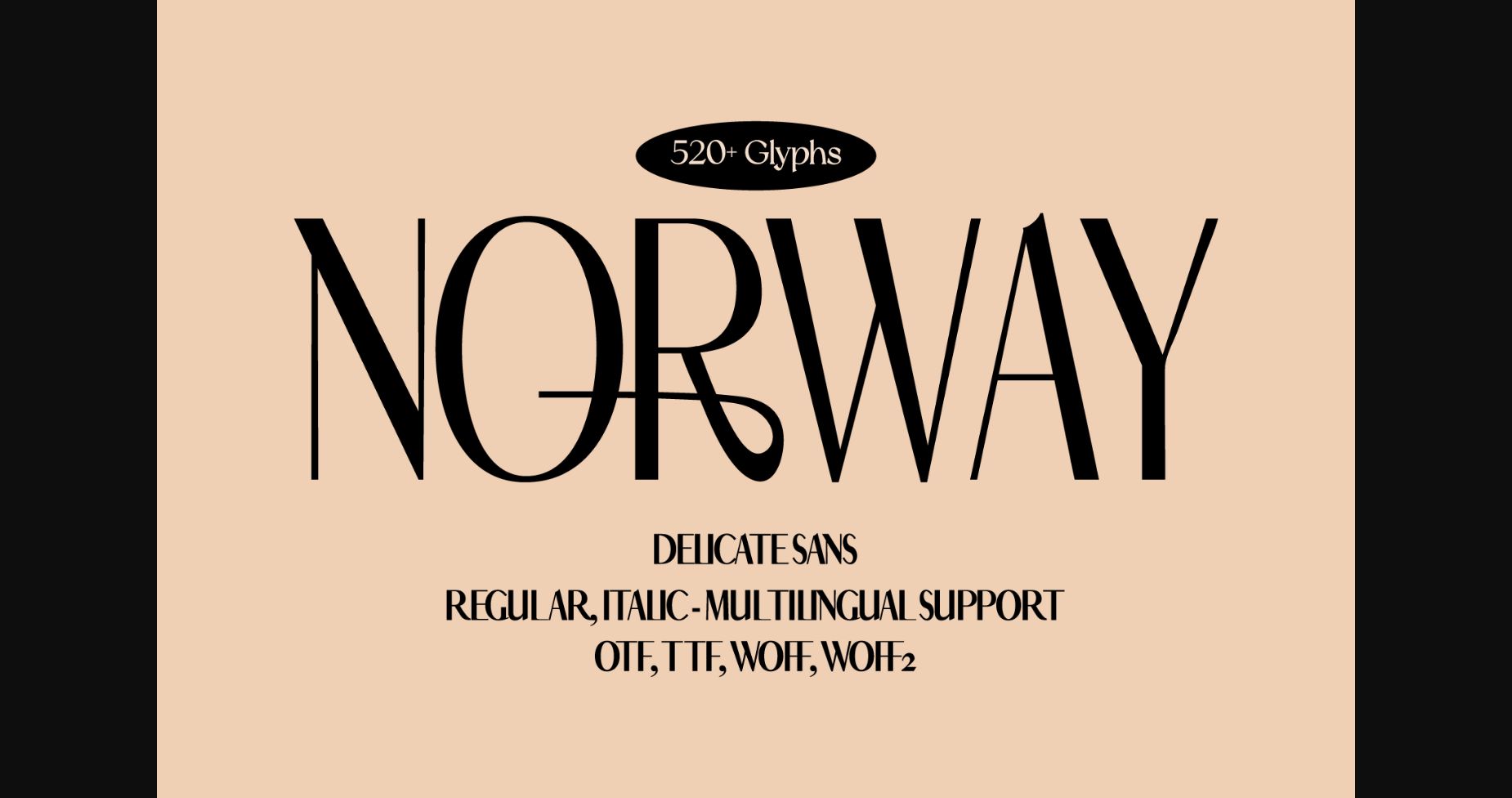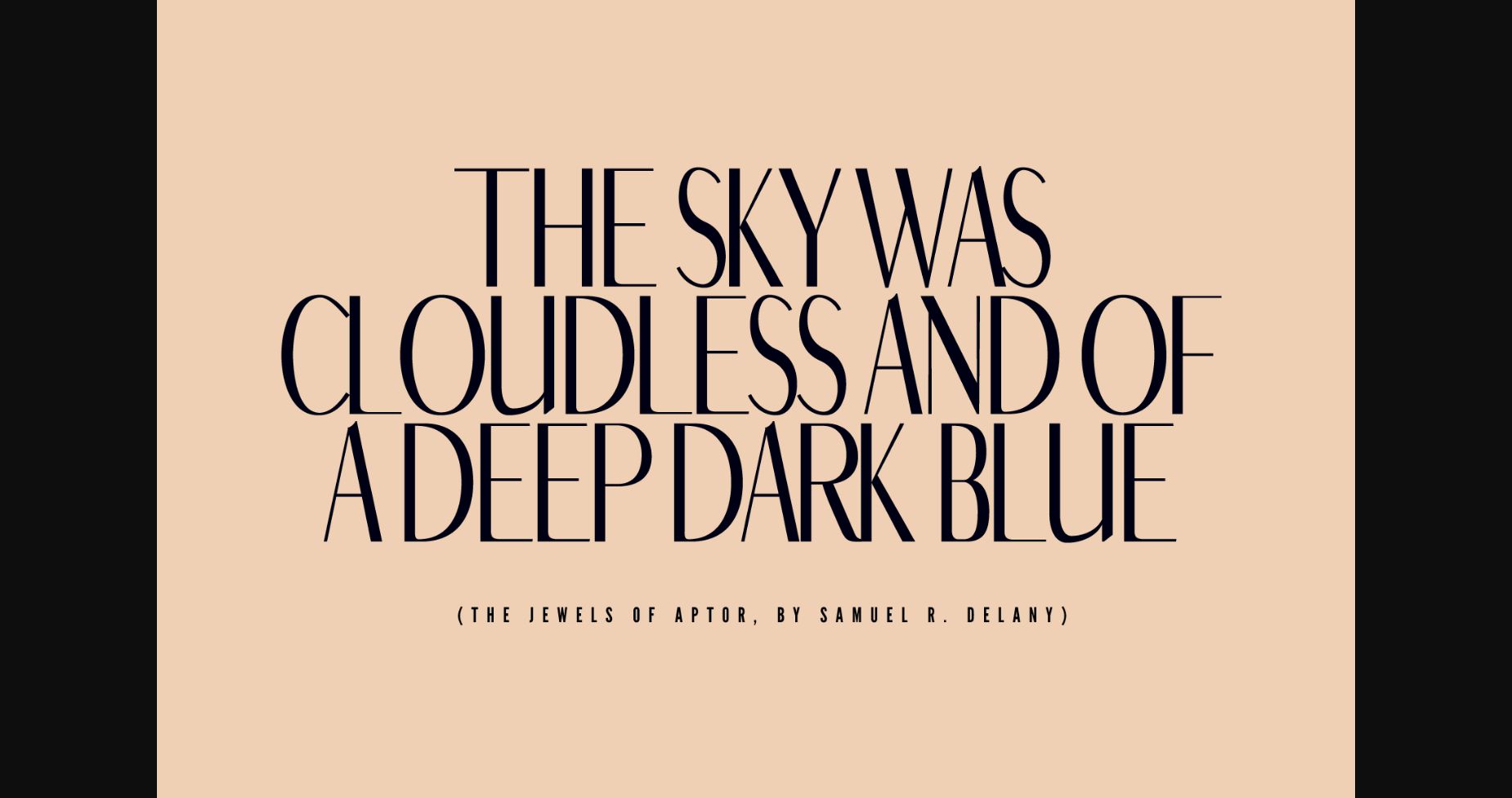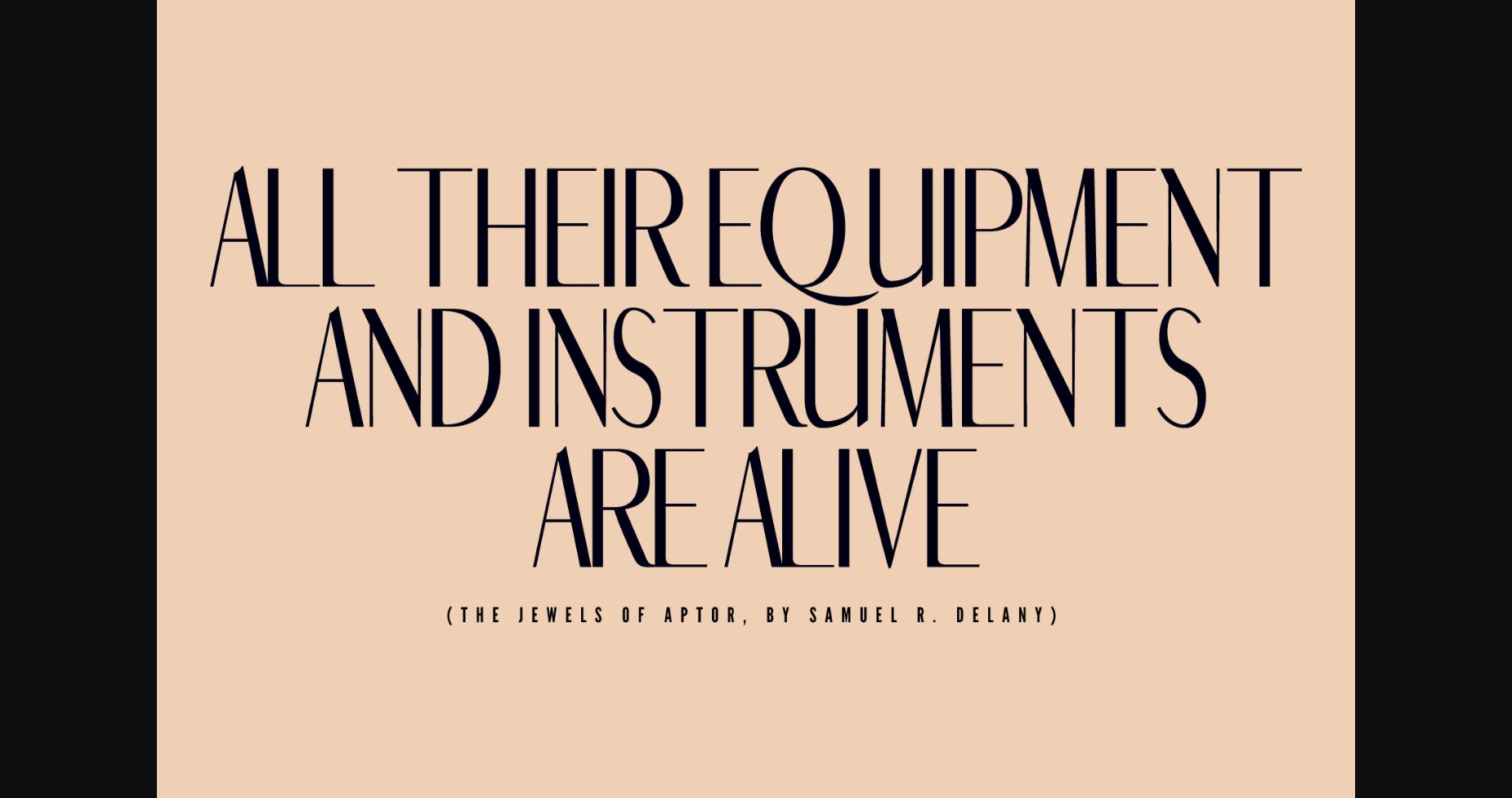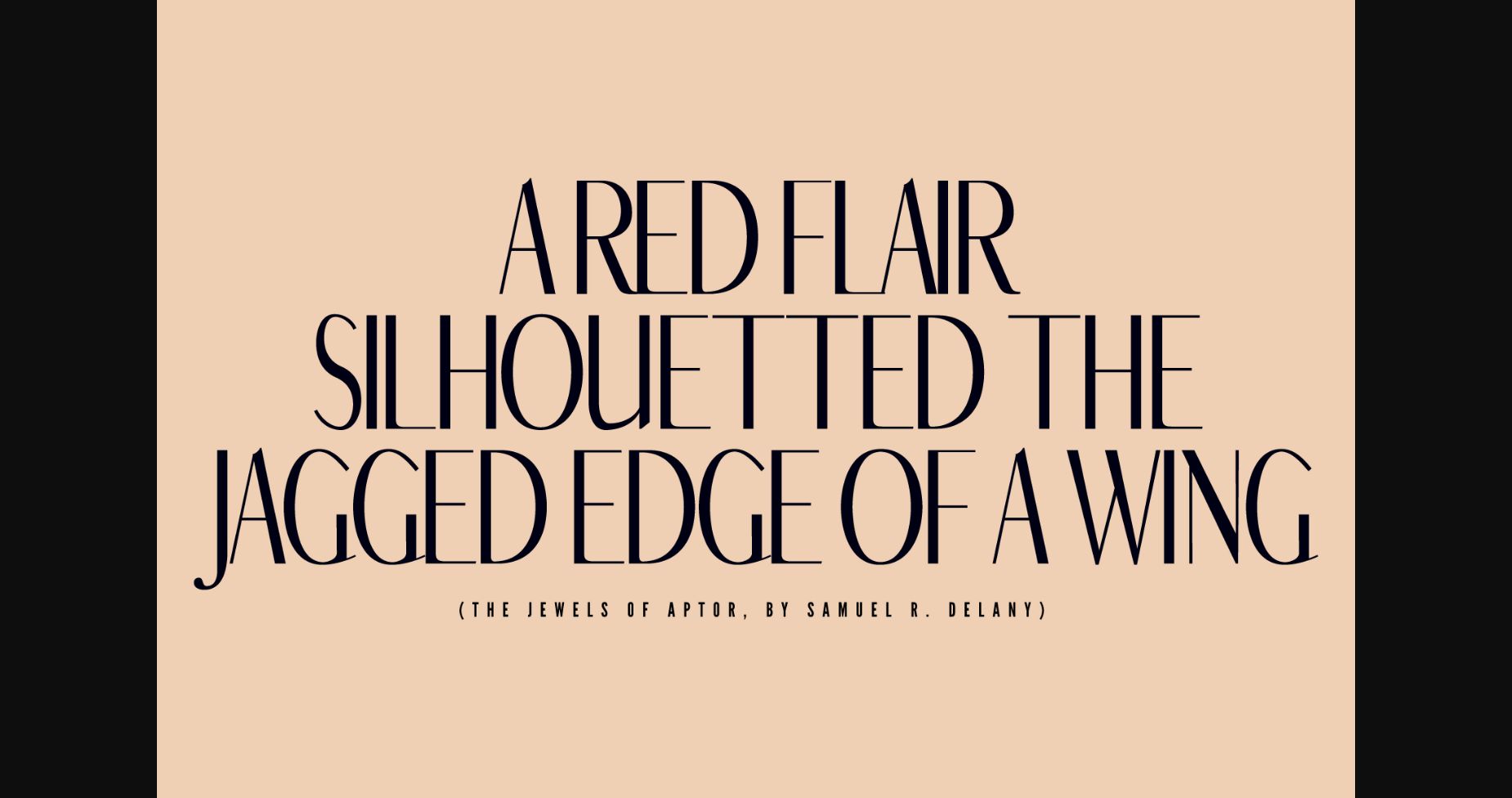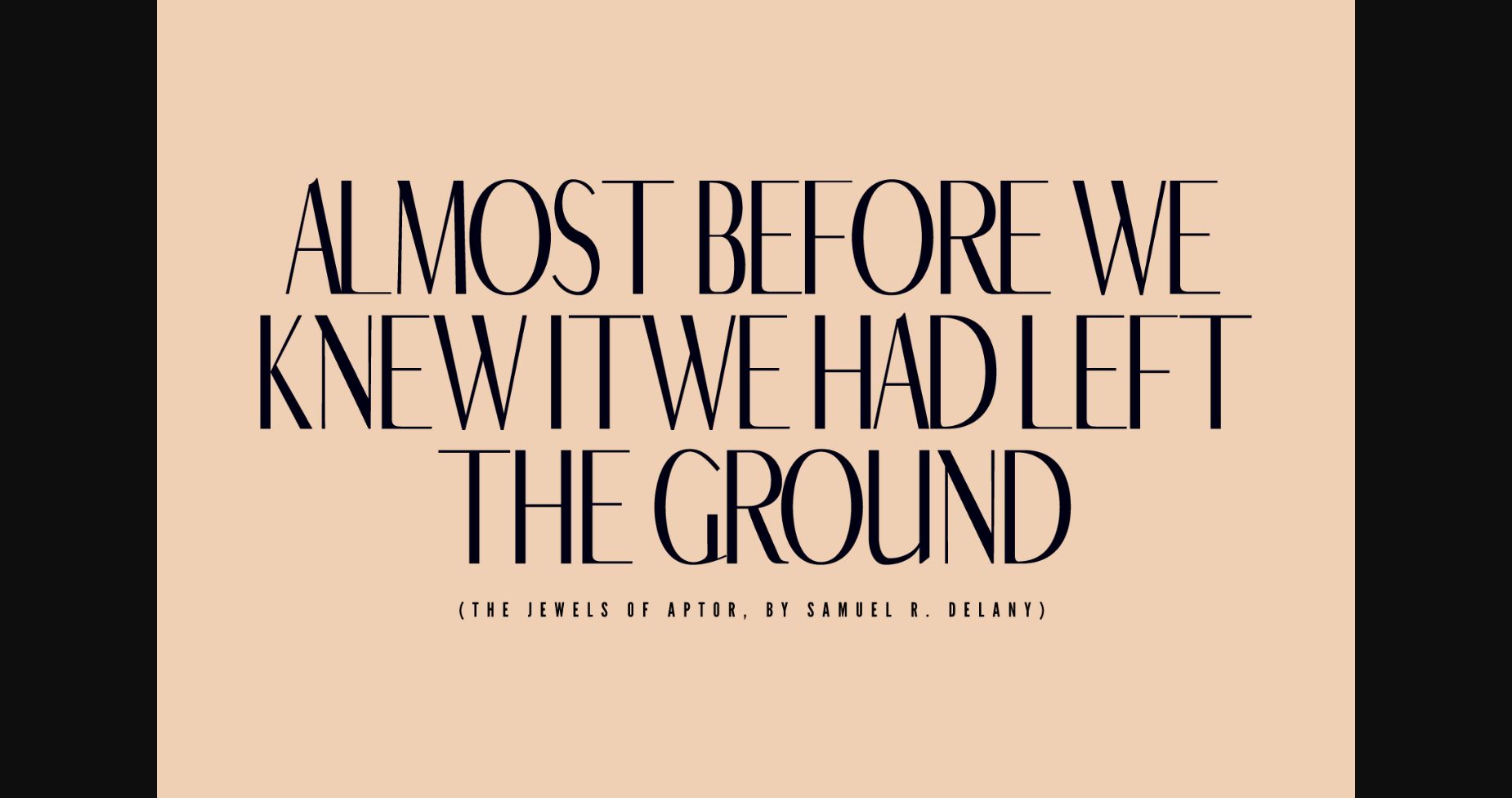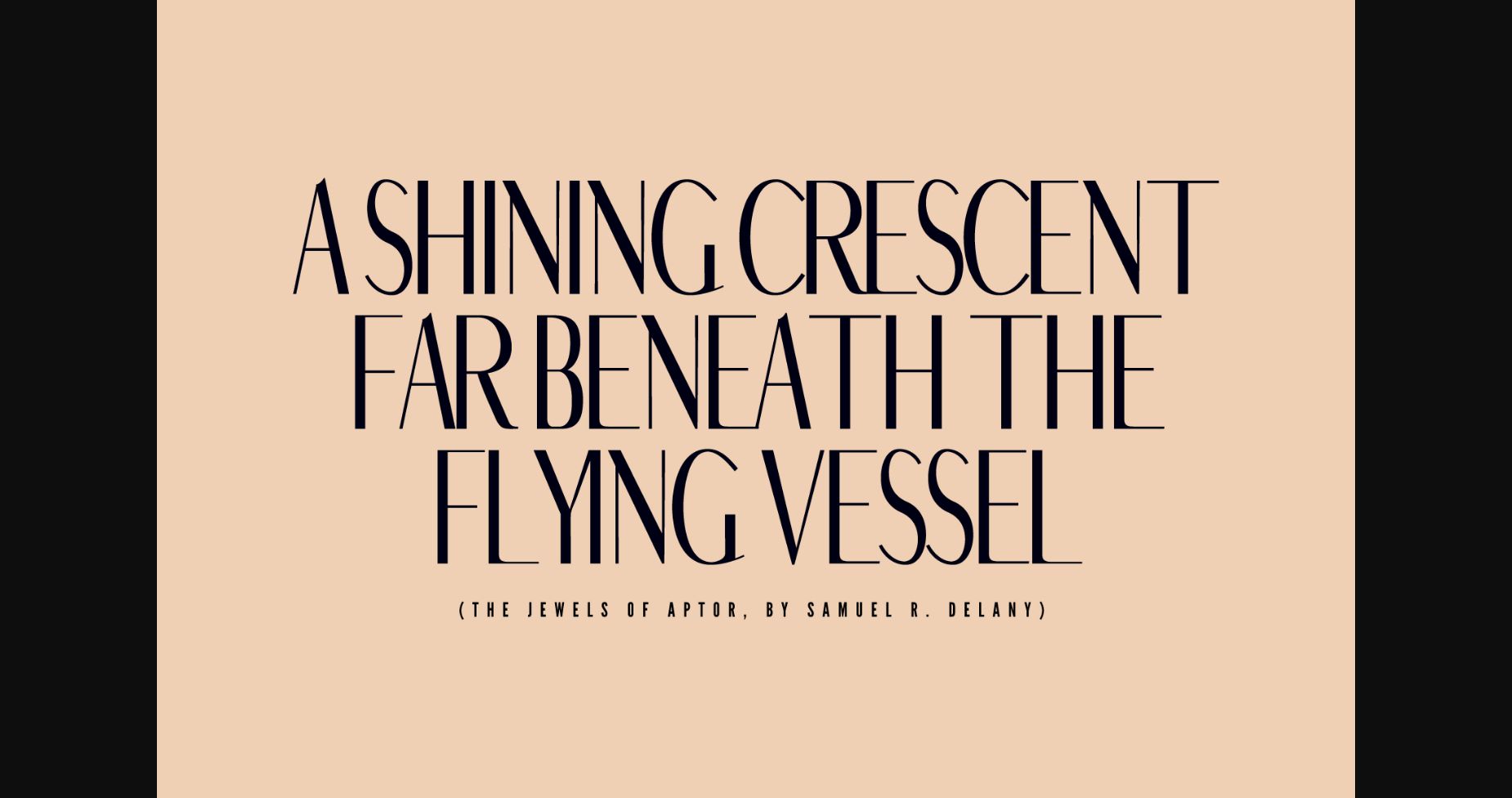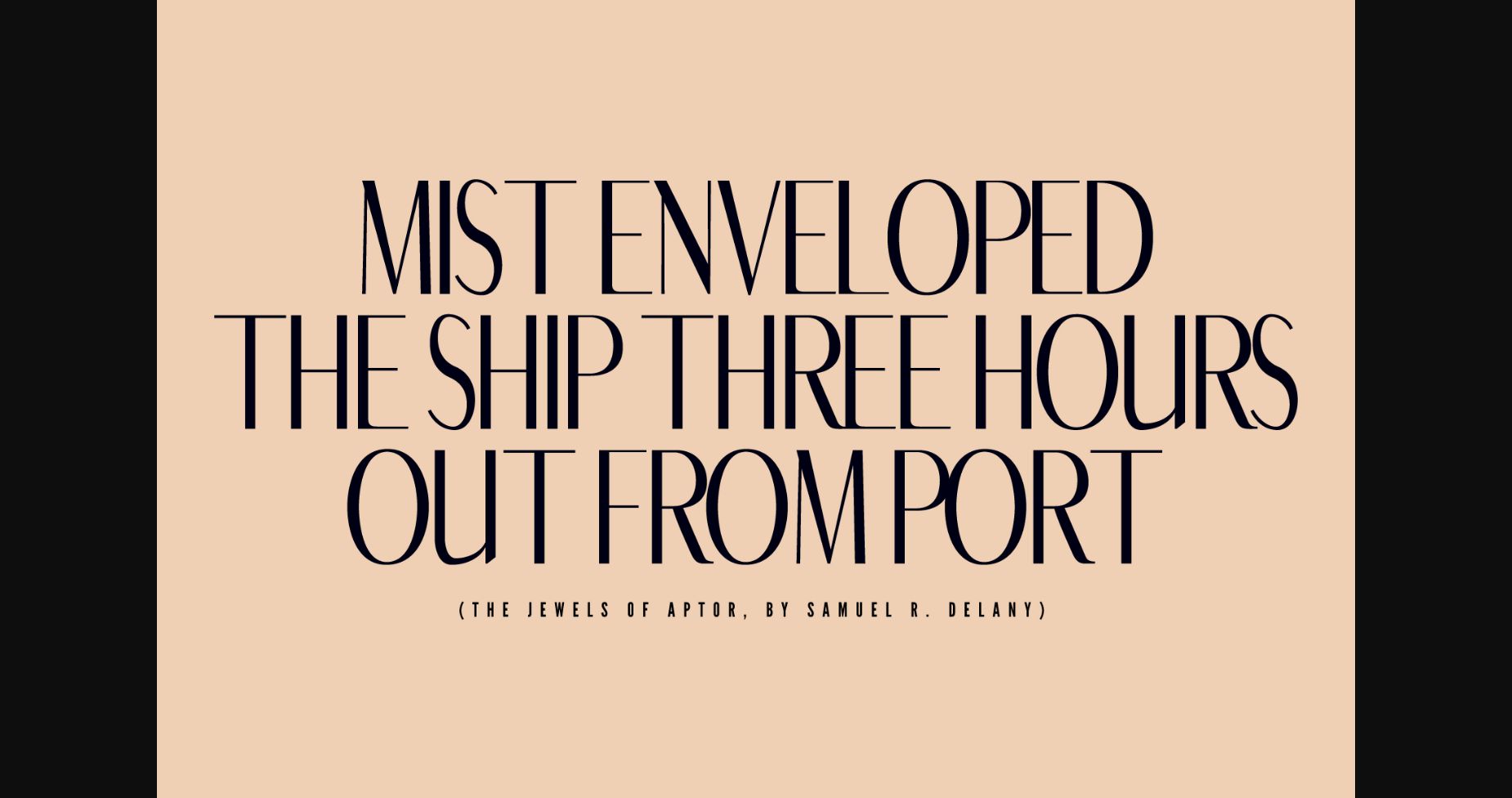
Norway Font
About Norway Font
Norway is a chic, elegant, and minimalist sans serif font perfect for branding, logos, websites, print layouts, and many more. Whether you’re a seasoned designer or just starting out, Norway is the font that will take your designs to the next level. So why settle for anything less than perfection? Choose Norway, and it will elevate your designs and leave a lasting impression.